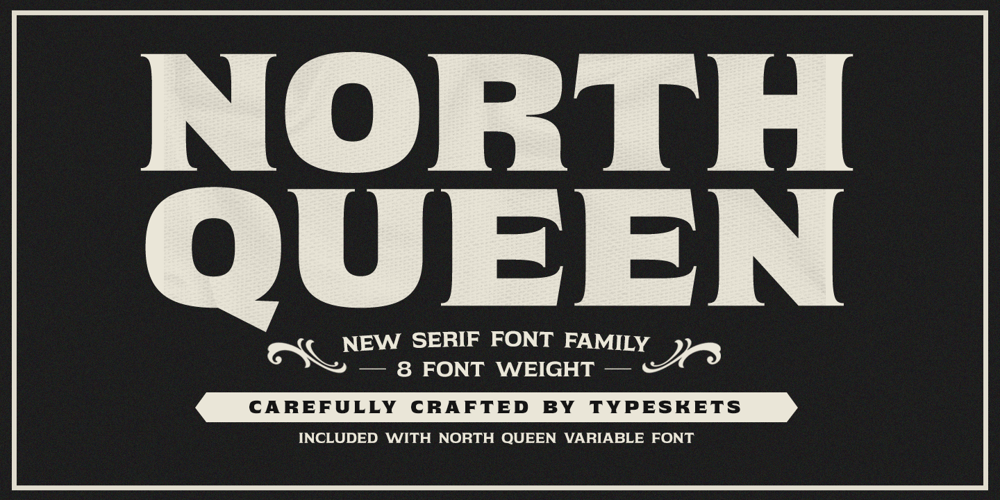
North Queen Font Family was designed by Sahrul Hidayat and published by Typeskets. North Queen contains 9 styles and family package options. North Queen is a Variable font and Font Family with 8 weights, starting from thin to extra bold, this font belongs to the classic serif nuanced font, very suitable for making label designs, posters, headlines, and many more, you might be able to add this font in your font collectionVARIABLEWe hope you enjoy this font! please feel free to comment if you have any thoughts or feedback. Thanks for purchasing and happy creating!